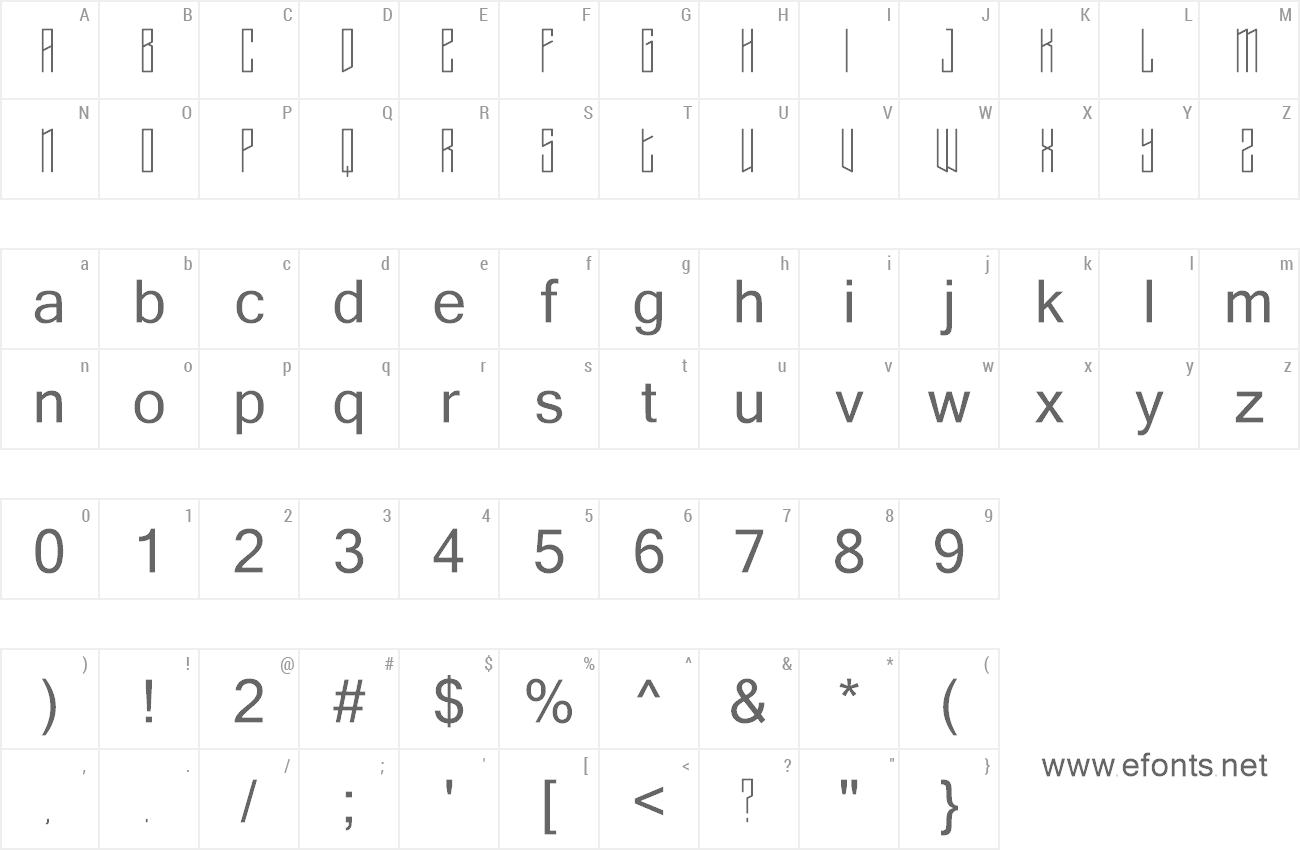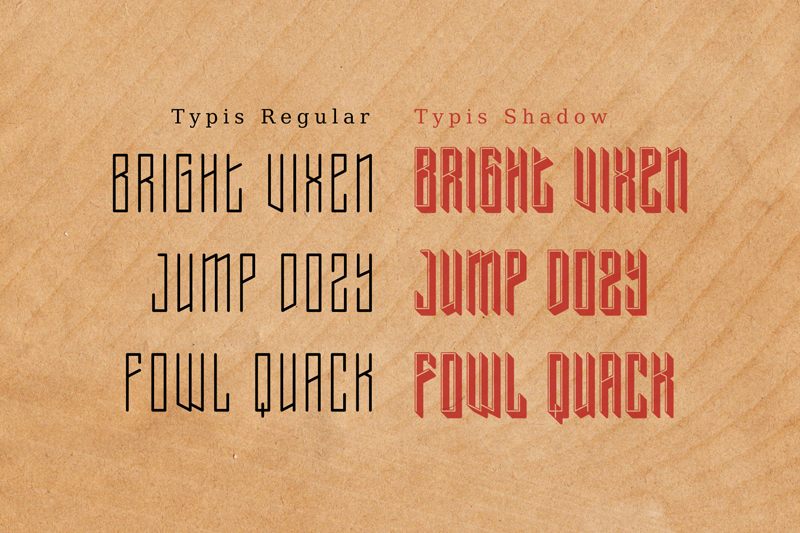
Preview and download Typis Font. Created by LetterStuff Typefoundry in Basic Various styles with Demo license.
Typis Sans was inspired by retro sans serif typography. With geometric, slim and condensed shape will make it more authentic to vintage taste. Please note : This demo font is ONLY FOR PERSONAL USE For commercial purpose and full version , get it here : https://crmrkt.com/j25kwG or contact me via message |